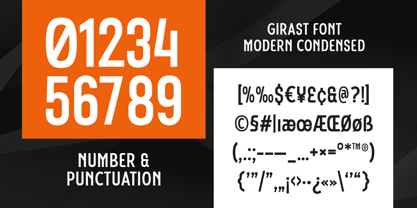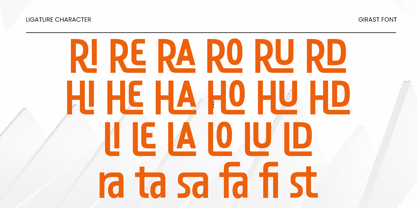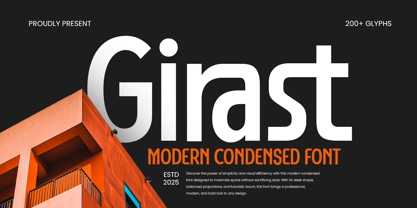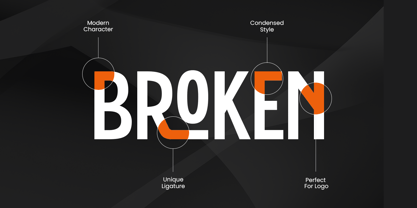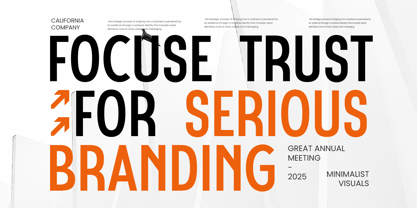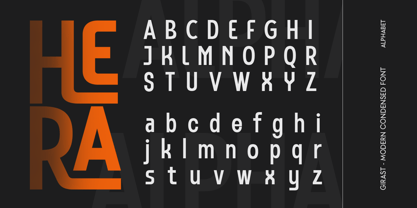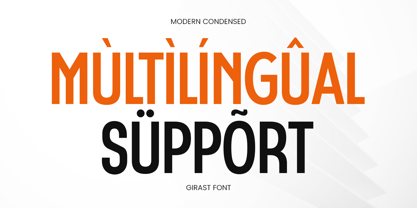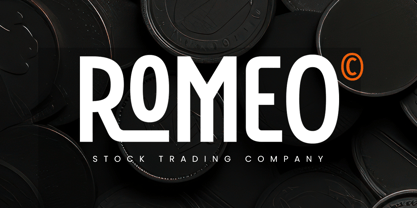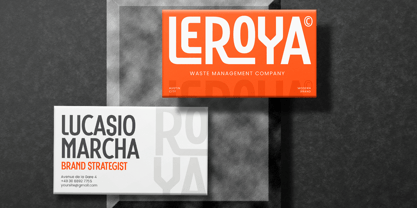
Girast is a modern condensed font crafted to deliver impact with precision. Its narrow structure and clean lines make it ideal for bold branding, editorial headlines, packaging, and minimalist design layouts where space and style matter.
Designed with versatility in mind, Girast balances contemporary aesthetics with strong readability. Whether you’re working on digital banners, magazine spreads, or professional presentations, this font brings clarity, style, and structure. Make your message stand tall and smart with Girast — a condensed font that speaks volumes in limited space.
Girast – Modern Condensed Font Features Sleek, space-saving condensed design
Perfect for branding, posters, editorials, and packaging
Punctuation, numbers, and symbols included
Uppercase and lowercase letters
Ligature characters for styling control
Create modern, smart, and sharp designs with Girast — the perfect condensed font for standout results. Maximize space, amplify impact — with Girast. 🧠📐
Girast